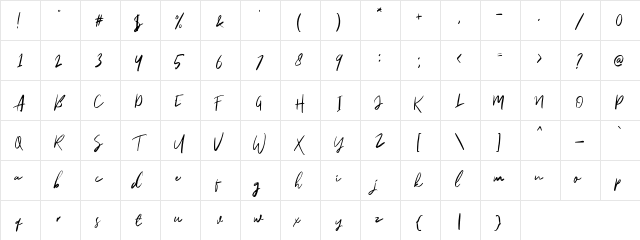
Callonsky Script DEMO Regular
| Foundry | Sarid Ezra |
| Designer | Sarid Ezra |
Design Context for Callonsky Script DEMO Typeface
Callonsky Script DEMO flows with the natural rhythm of handwritten lettering, making it ideal for designs that call for warmth and personal expression.
Font Pairing: Combine Callonsky Script DEMO with a simple geometric sans for maximum contrast — the tension between flowing curves and clean structure is a classic typographic pairing.
Pro Tip: Pair Callonsky Script DEMO with a clean sans-serif for supporting text. The contrast between fluid script and geometric structure creates an elegant typographic hierarchy.